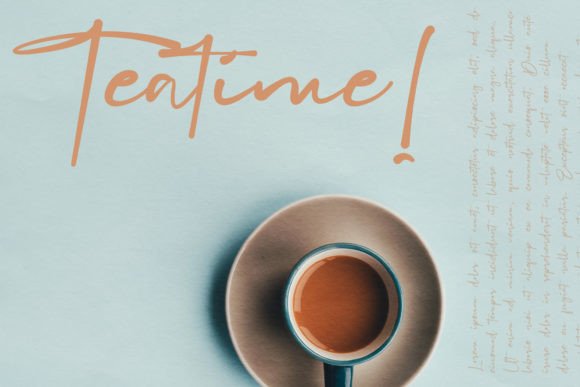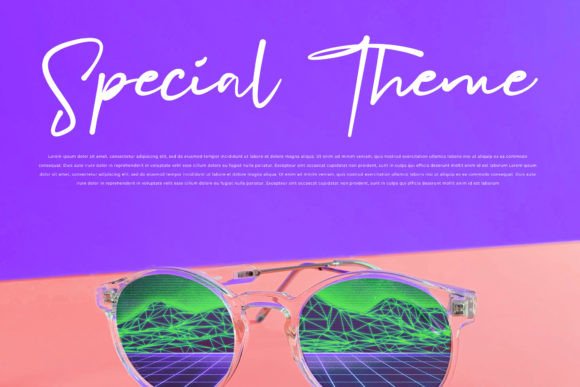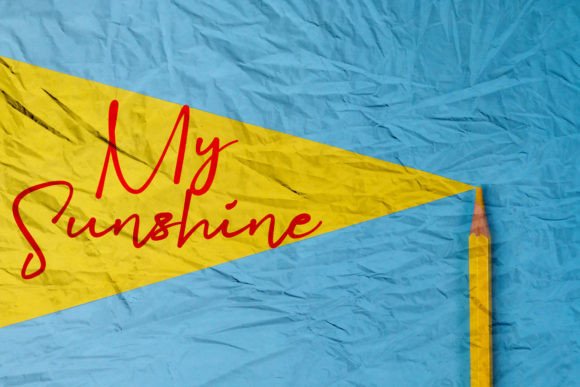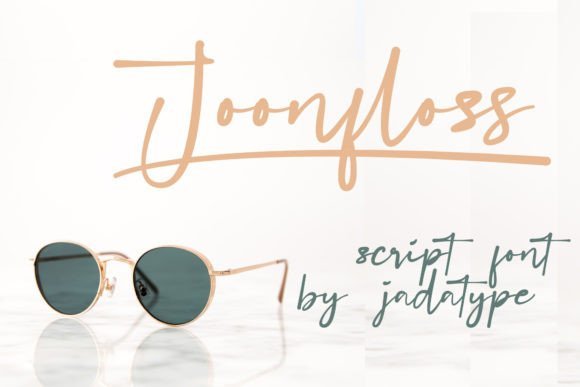
Introduction to Joonfloss Font
Joonfloss is a cute and charming handwritten font.
Whimsical and a bit quirky, this font will brighten up each of your designs Add it confidently to your projects, and you will love the results.
Joonfloss Font offers exceptional quality and versatility, making it a valuable addition to your design toolkit. Whether you’re creating for personal projects or commercial use, Joonfloss Font delivers professional results.